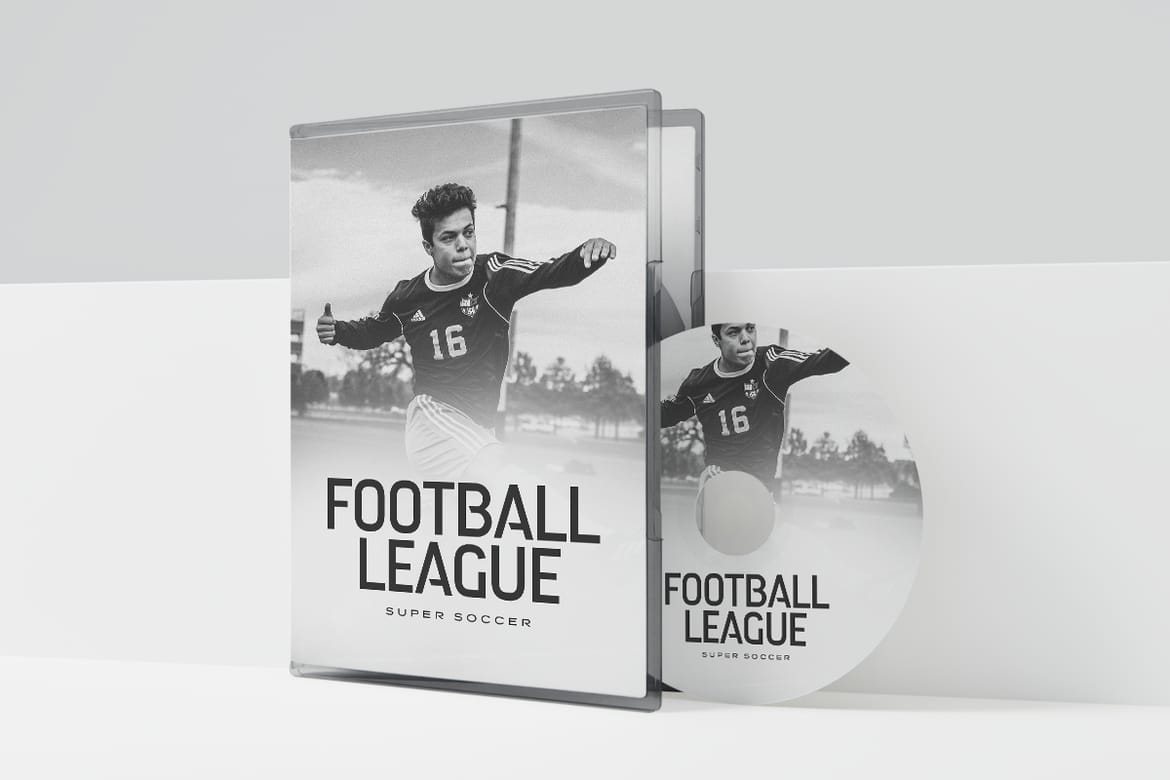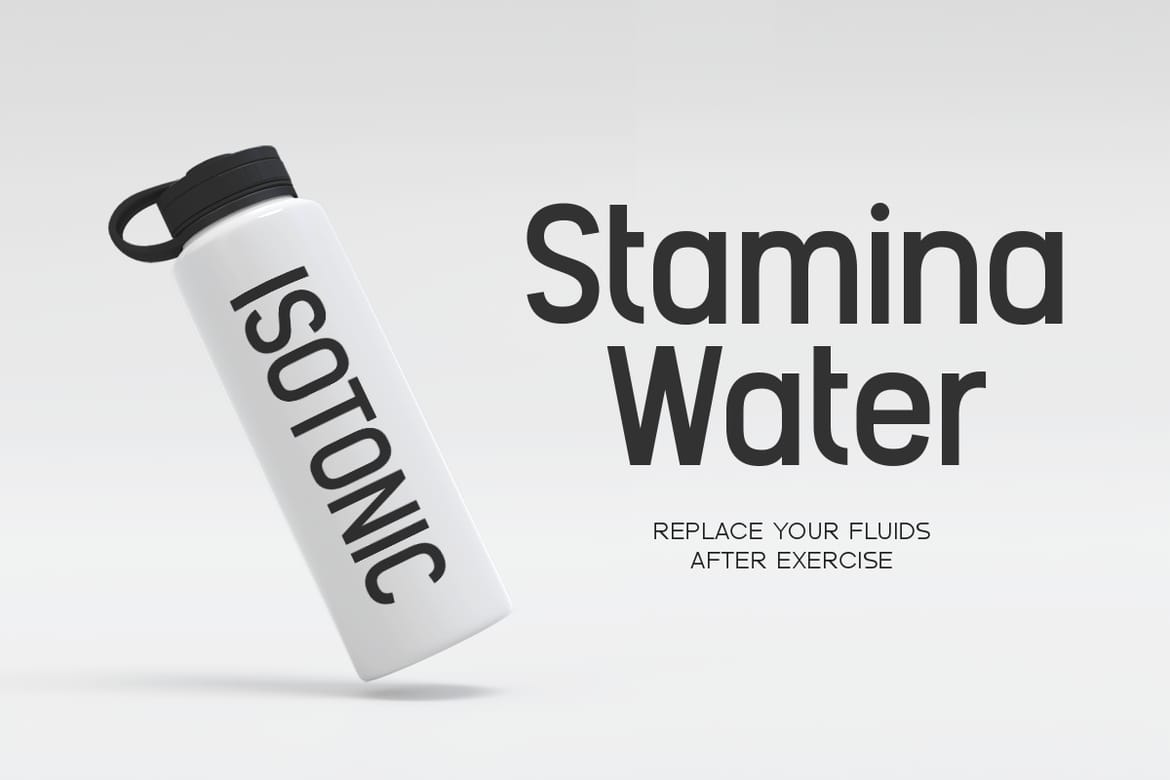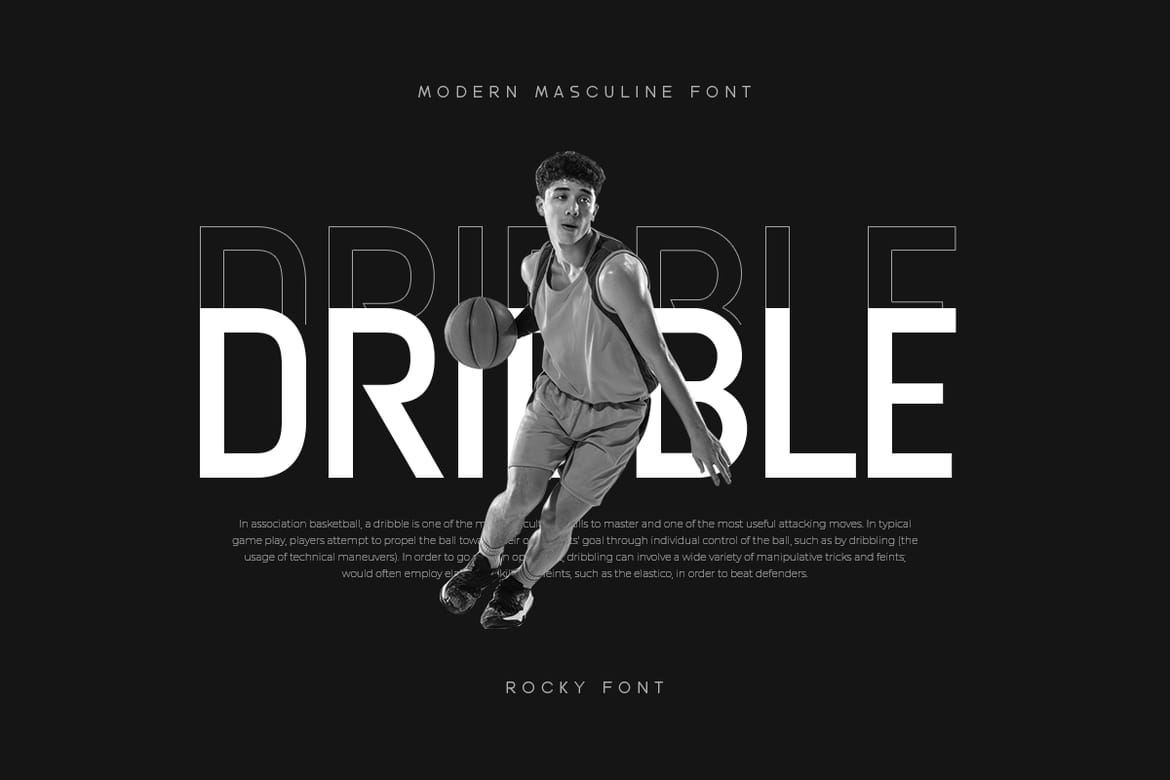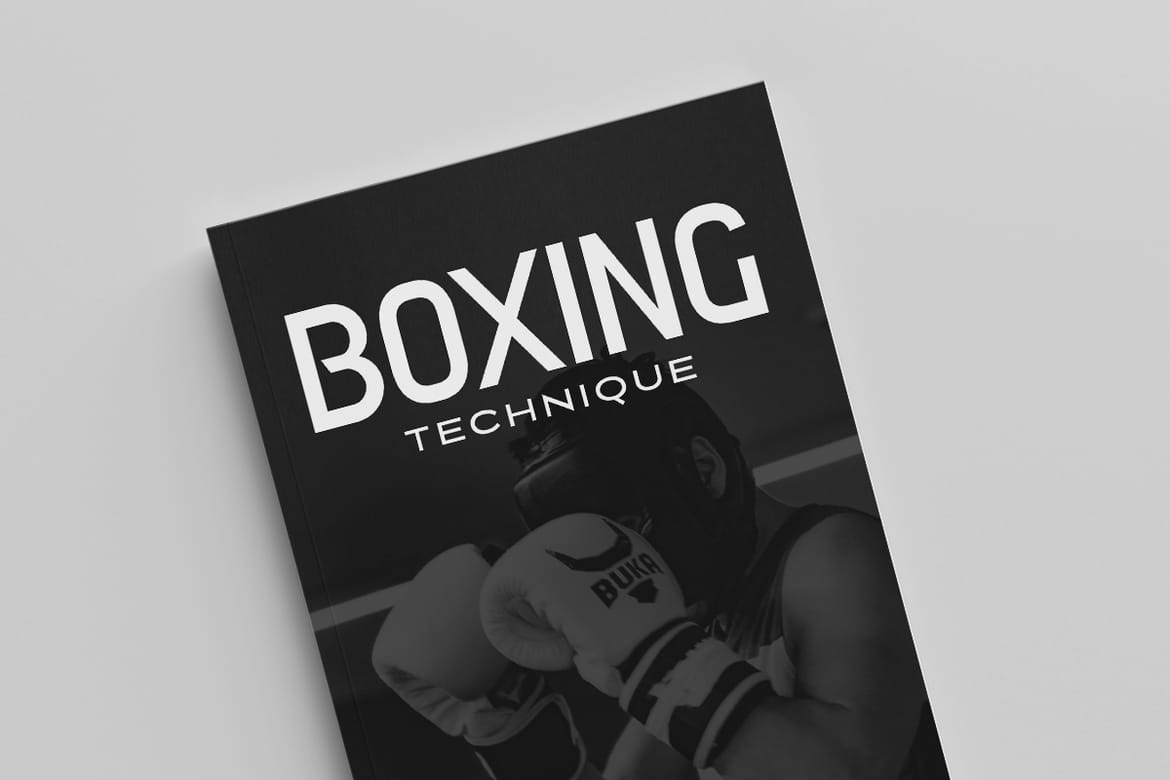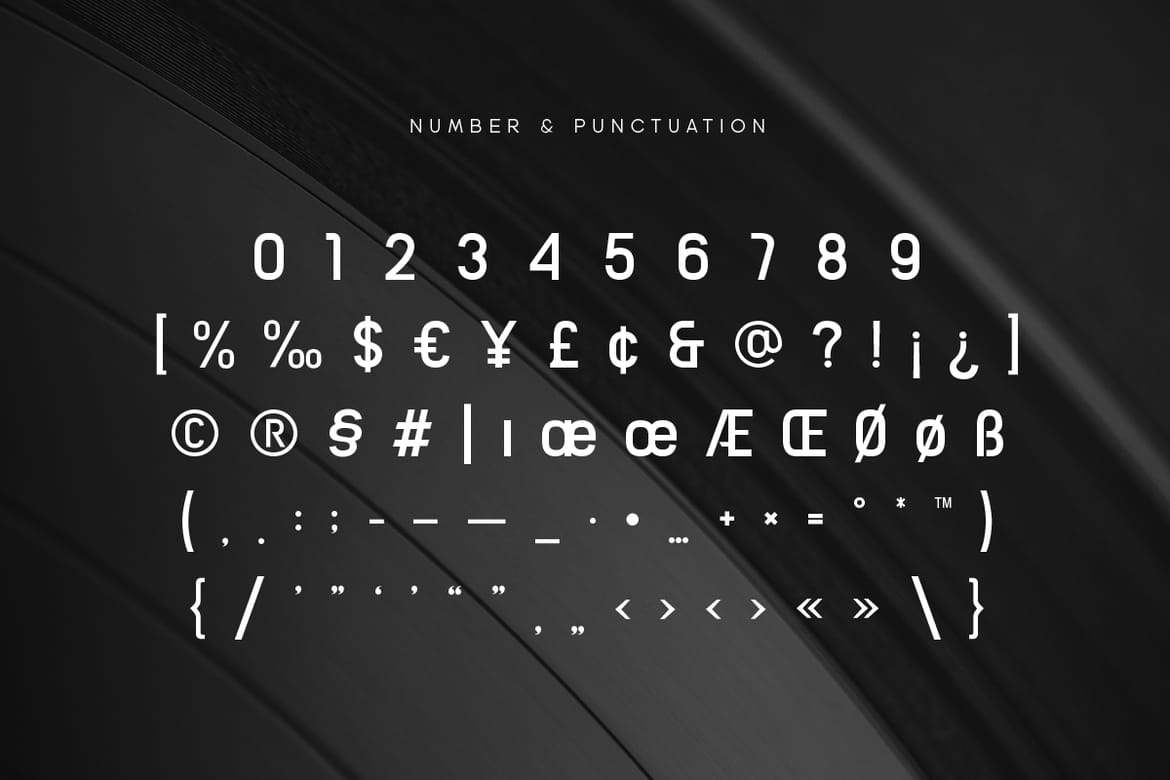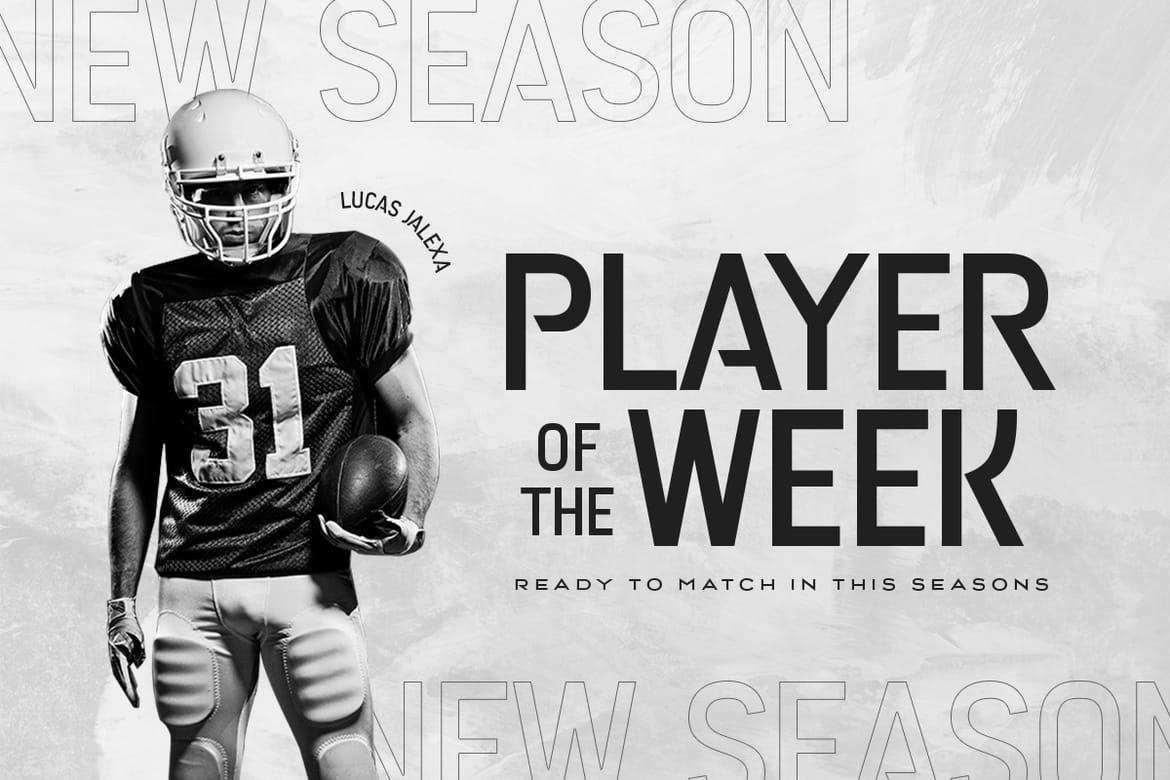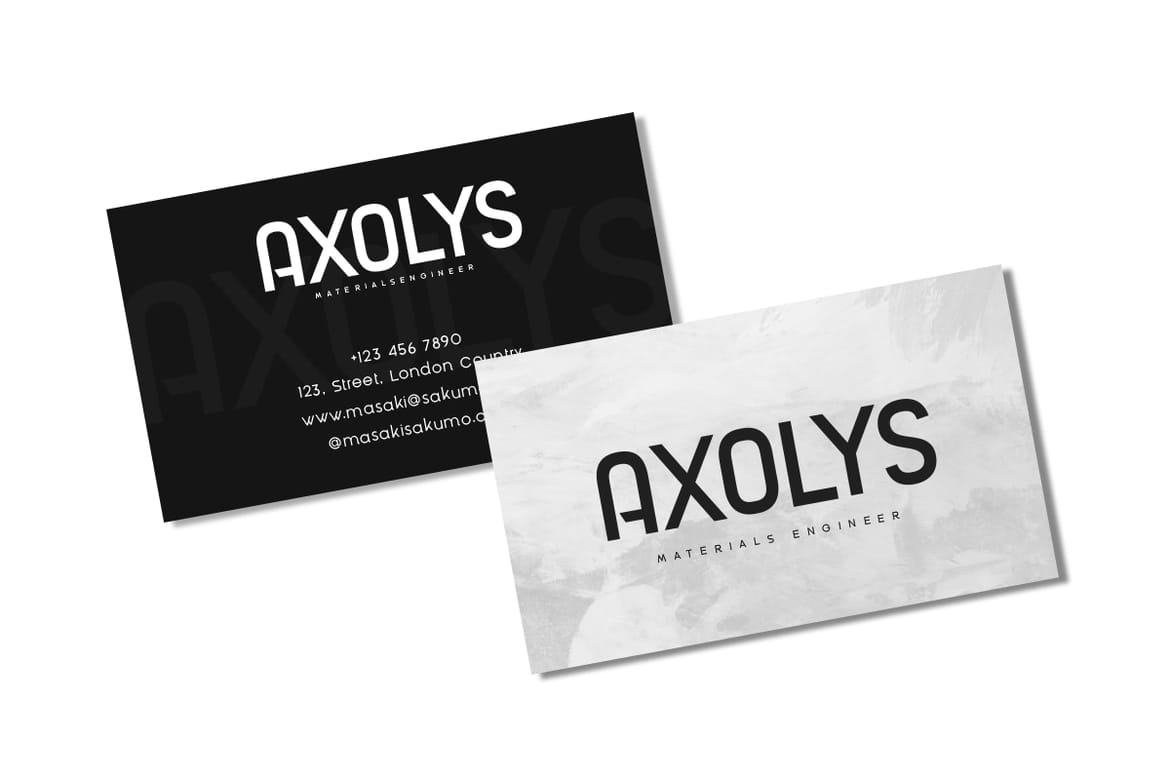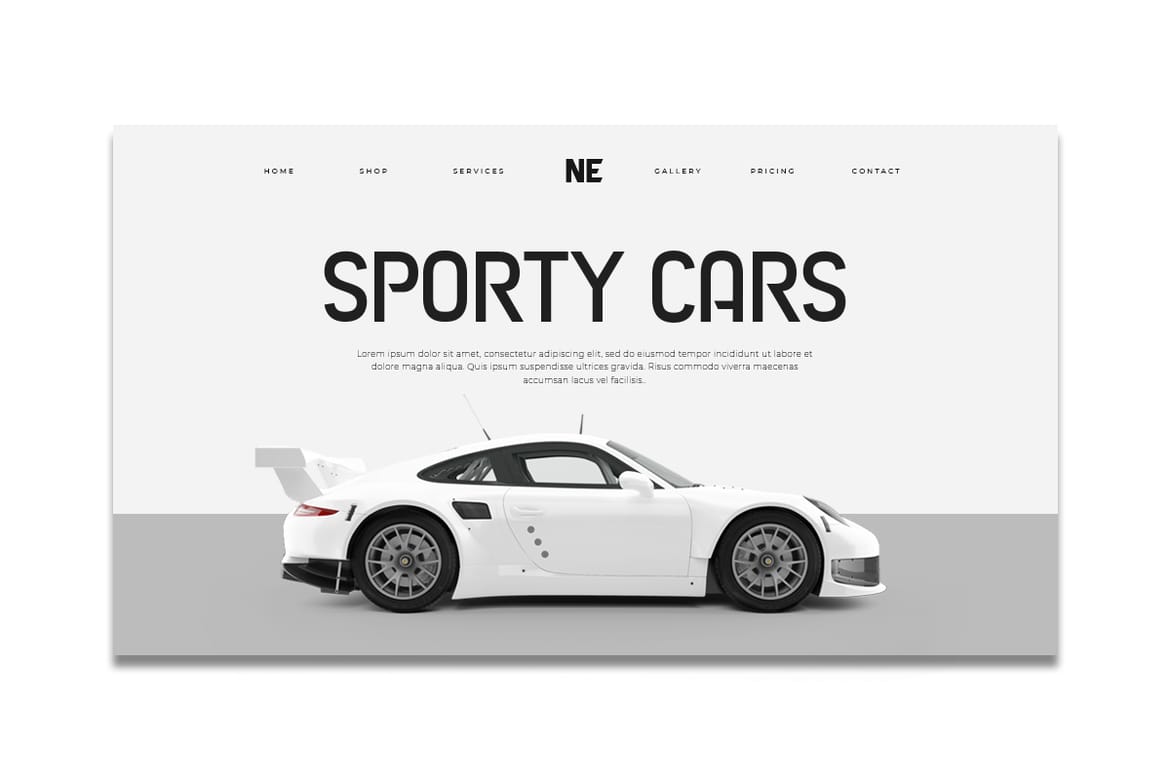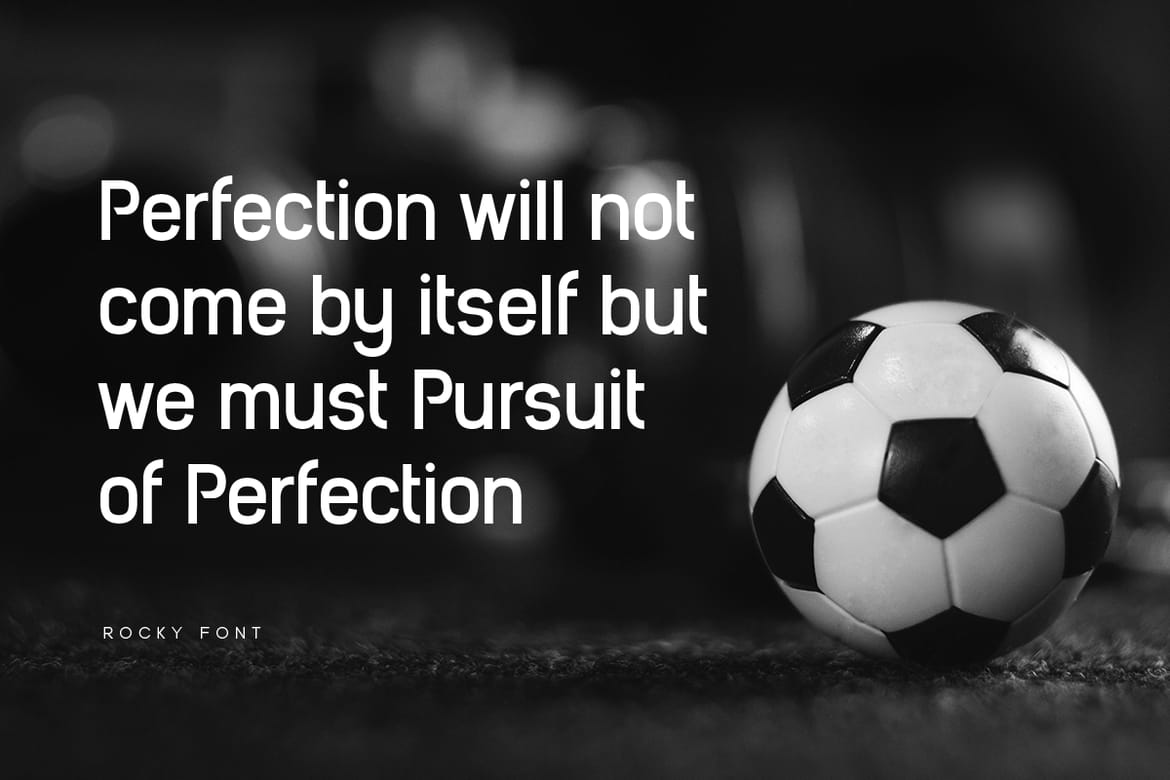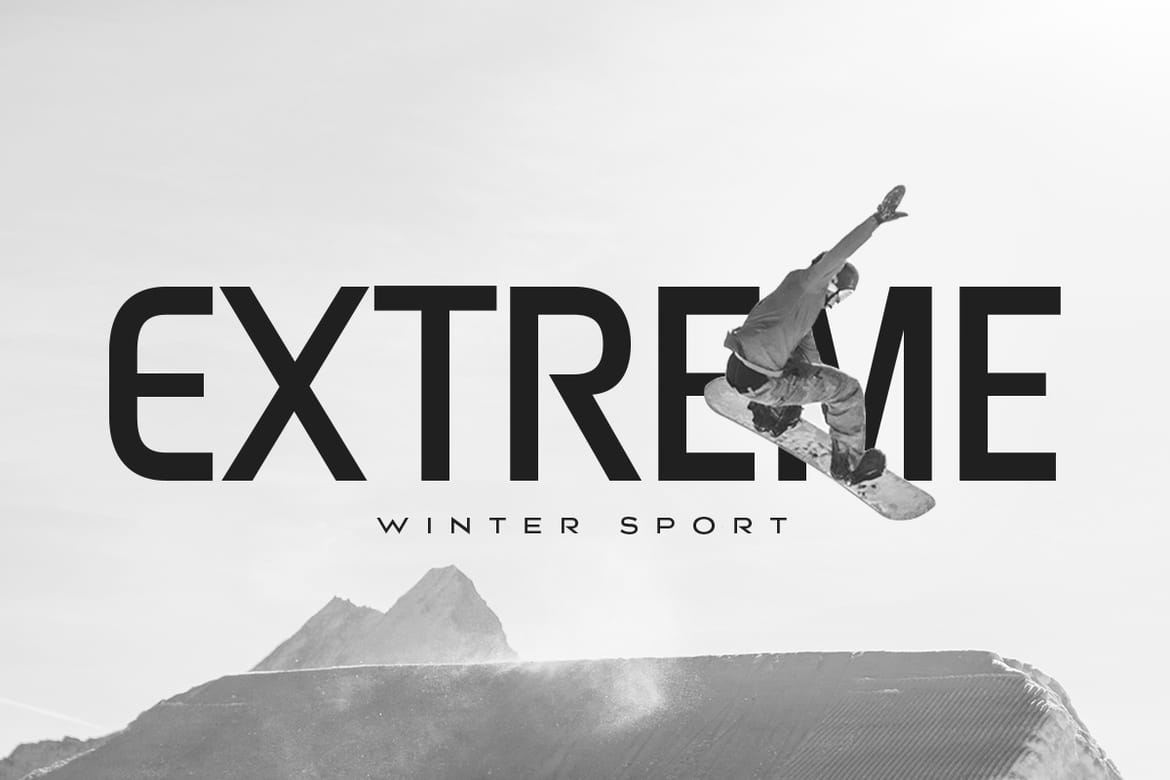
Rocky - Modern Masculine Font
Rocky is a Modern Masculine font that created special for Branding. Title and more stand out typography needs, with extra alternative styles that make your design more memorable. It's so perfect to add your style and headline overview for sport, technology, actions, and fighting theme. And specially for this font, we crafted for bold action style and modern feel's so enjoy to create any project that will show your main idea out.
• Modern bold typography
• Perfect for sports designs
• Masculine action style font